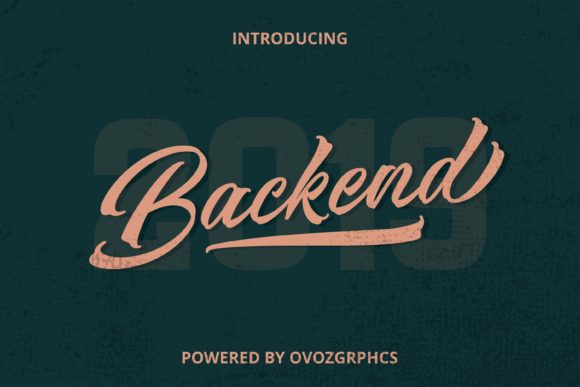
Step into the world of Backend Font, a captivating script font that will add a touch of elegance and personality to your creative endeavors. This exquisite creation by ovoz.graphics is not just a font; it's an artistic expression that speaks volumes. Prepare to be mesmerized by its graceful strokes, delicate curves, and undeniable charm.
Backend Font is more than just a collection of letters and symbols; it's an invitation to unleash your creativity and leave a lasting impression. Its unique and stylish appearance makes it the perfect choice for a wide range of projects, from heartfelt invitations to eye-catching logos. Whether you're a seasoned designer or just starting your creative journey, Backend Font is your trusted companion, ready to transform your vision into reality.
As you dive into the depths of Backend Font, you'll discover its remarkable versatility. Its free-flowing nature lends itself effortlessly to various design aesthetics, from classic and timeless to modern and edgy. Whether you're crafting wedding invitations, designing social media posts, or creating stunning posters, Backend Font adapts seamlessly, adding a touch of sophistication and individuality to each project.
But it's not just about the aesthetics; Backend Font carries an emotional weight that resonates with your audience. Its elegant strokes evoke a sense of nostalgia and romance, while its modern flair adds a touch of contemporary charm. With Backend Font, your designs will not only look captivating but also speak to the hearts of your viewers, leaving a lasting impression that lingers long after they've seen your creation.
So, embrace the allure of Backend Font and let your creativity soar. Its carefully crafted characters will guide you in crafting designs that captivate and inspire. With Backend Font by your side, you'll leave an unforgettable mark on the world, one design at a time. Don't let this opportunity pass you by; add Backend Font to your collection today and unleash the boundless possibilities that await.